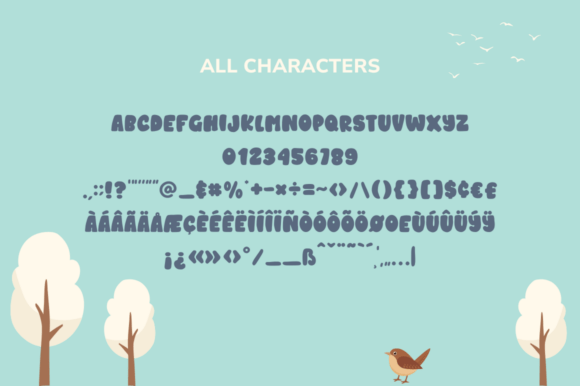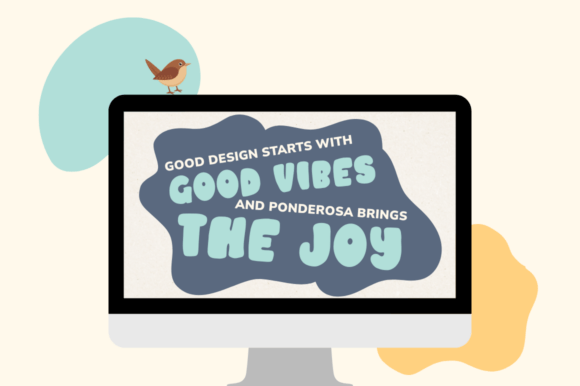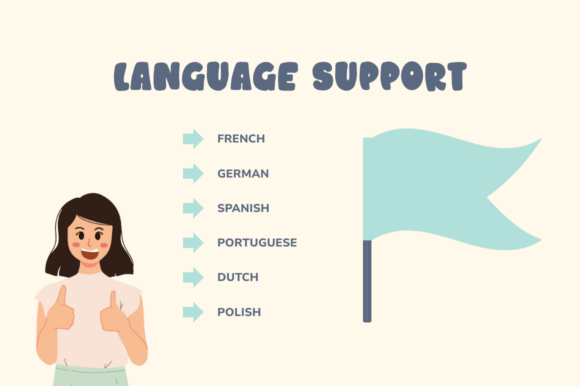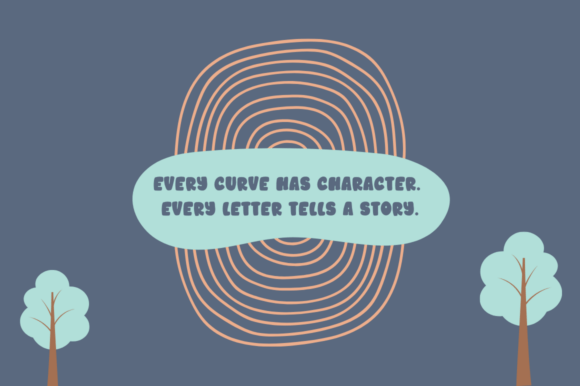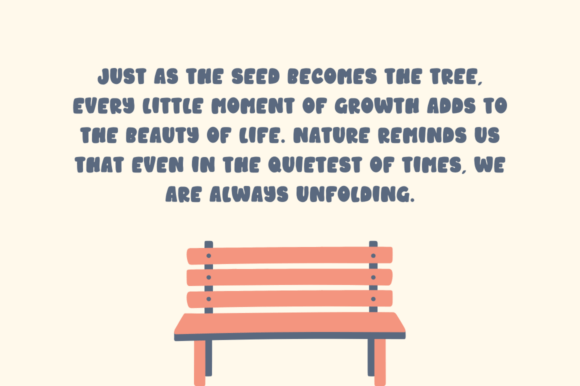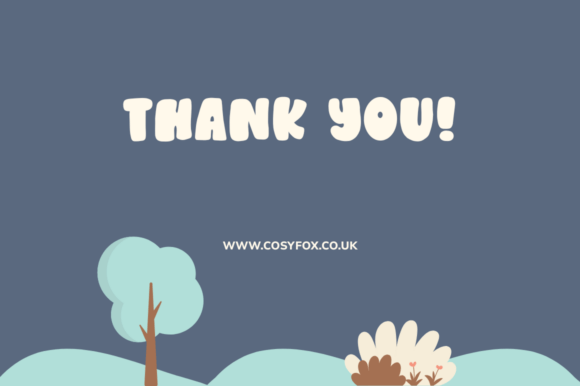
Introduction to Ponderosa Font Font
Fonts play a crucial role in design, and the Ponderosa Font font is a typeface that brings both character and versatility to any project. Whether you’re working on a branding project, a website, or a print design, the Ponderosa Font font offers a unique style that can elevate your work.
Introducing Ponderosa, a cute and fun hand-drawn font in all-caps.
There is language support for: French, German, Spanish, Italian and Portuguese .
Key Features of Ponderosa Font Font
Why Choose Ponderosa Font Font?
The Ponderosa Font font is more than just a typeface – it’s a design tool that helps you communicate your message with style and clarity. Its unique character set and versatile design make it suitable for a wide range of applications, from elegant invitations to bold headlines.
With its carefully crafted letterforms and balanced proportions, the Ponderosa Font font ensures readability and visual appeal across all mediums.
What makes Ponderosa Font font special?
The Ponderosa Font font stands out with its unique design, exceptional readability, and versatility across various design applications.